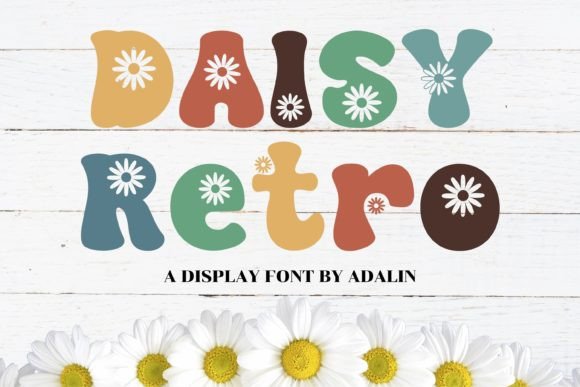
Daisy Retro, Flower Power 70s Display Font
Daisy Retro is a retro‑inspired display font ideal for creative and commercial design projects. With its fun, bold, and slightly nostalgic style, it adds a playful retro vibe to whatever you create — from packaging and posters to merchandise and digital graphics. This font offers versatile design flexibility, whether you are making branding materials, print‑on‑demand products, or art prints.
Daisy Retro gives your designs a fun, nostalgic, and bold character that stands out. It’s easy to install and use, versatile across different media (digital, print, merchandise), and licensed for commercial work — freeing you to sell finished products without worries. Whether you want a cheerful vibe for a sticker line or retro branding for a boutique, this font has you covered.
| Feature | Daisy Retro Font | Generic Sans‑Serif Font | Generic Display Font |
| Style / Vibe | Retro, bold, playful | Modern, neutral, minimal | Decorative, expressive, but not vintage |
| Best Use Cases | Logos, posters, merch, packaging, branding | Body copy, clean UI, minimal layouts | Headings, banners, statements — but generic look |
| Visual Impact | High — distinctive vintage appeal | Low to medium — plain and functional | Medium — stylized but generic |